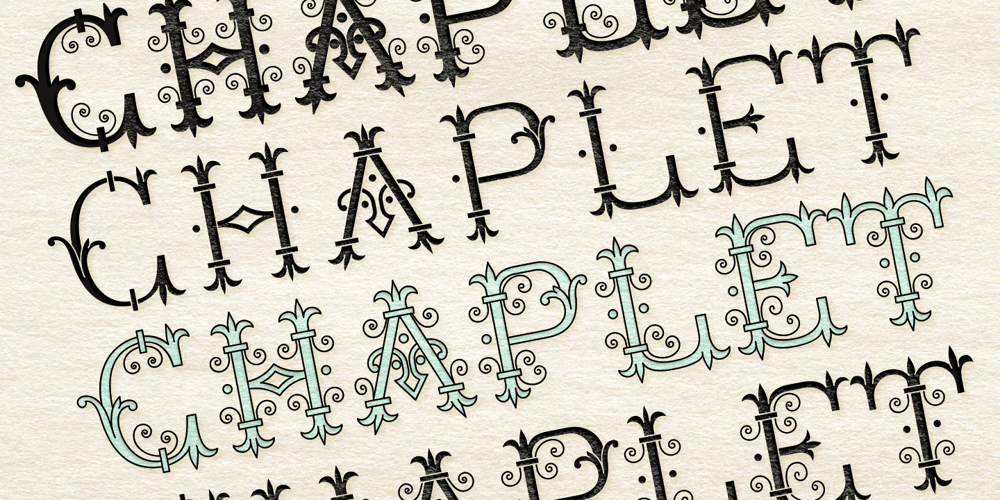
MFC Chaplet Monogram Font Family was designed by Jim Lyles, Brian J. Bonislawsky and published by Monogram Fonts Co.. MFC Chaplet Monogram contains 27 styles and family package options. The inspiration source for MFC Chaplet Monogram is a beautiful letterset from the “Dessins de Broderies – Album No. 486” by Sajou from the late 1800’s. This family includes four fonts, the original MFC Chaplet Monogram, and MFC Chaplet Solid Monogram, MFC Chaplet Stencil Monogram and MFC Chaplet Chroma Monogram. Chaplet Solid and Chaplet Stencil can be used alone or combined with the outline version. Chaplet Chroma is intended to be used with the outline or solid font to build chromatic monograms. Download and view the MFC Chaplet Monogram Guidebook if you would like to learn a little more.